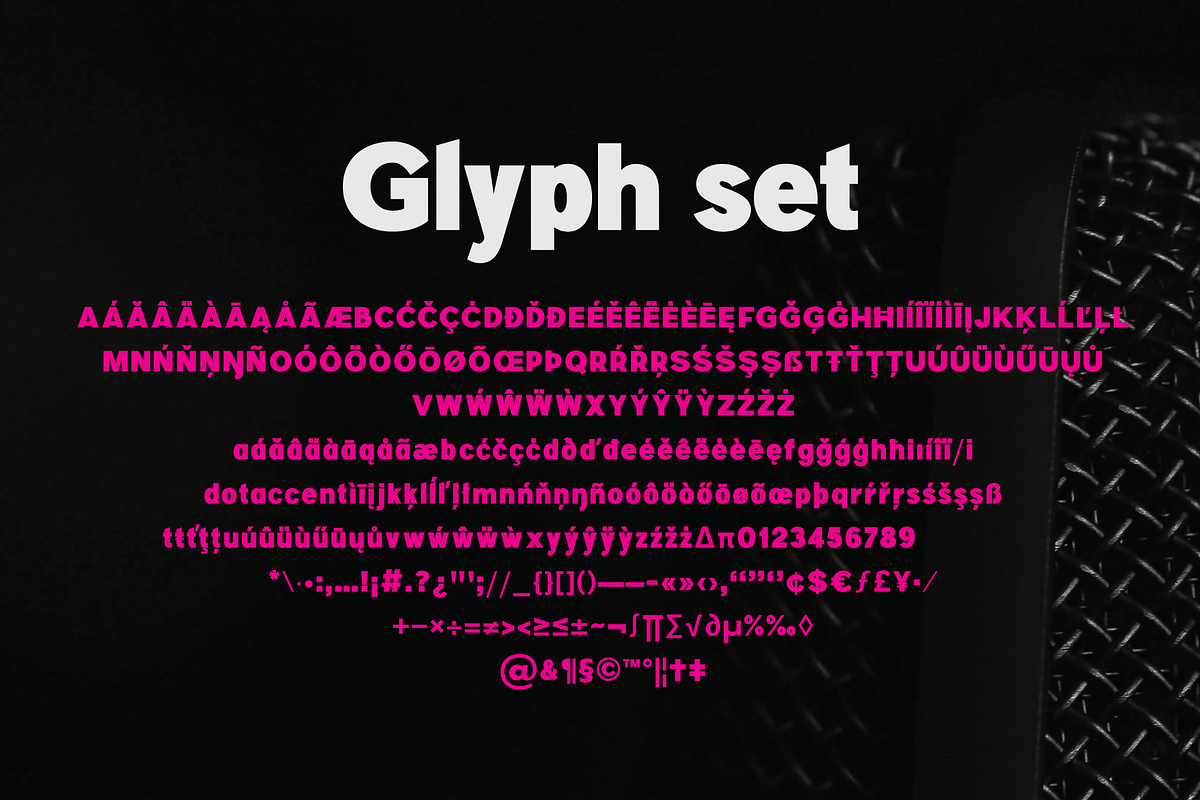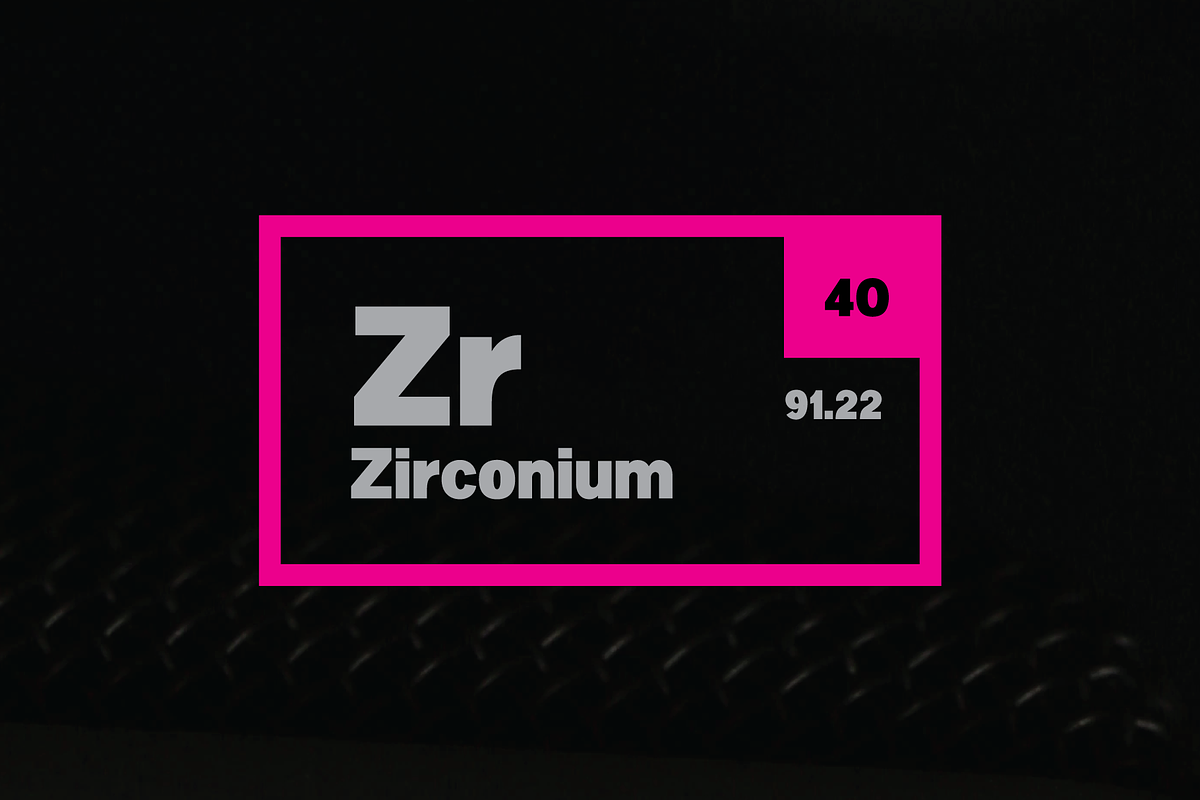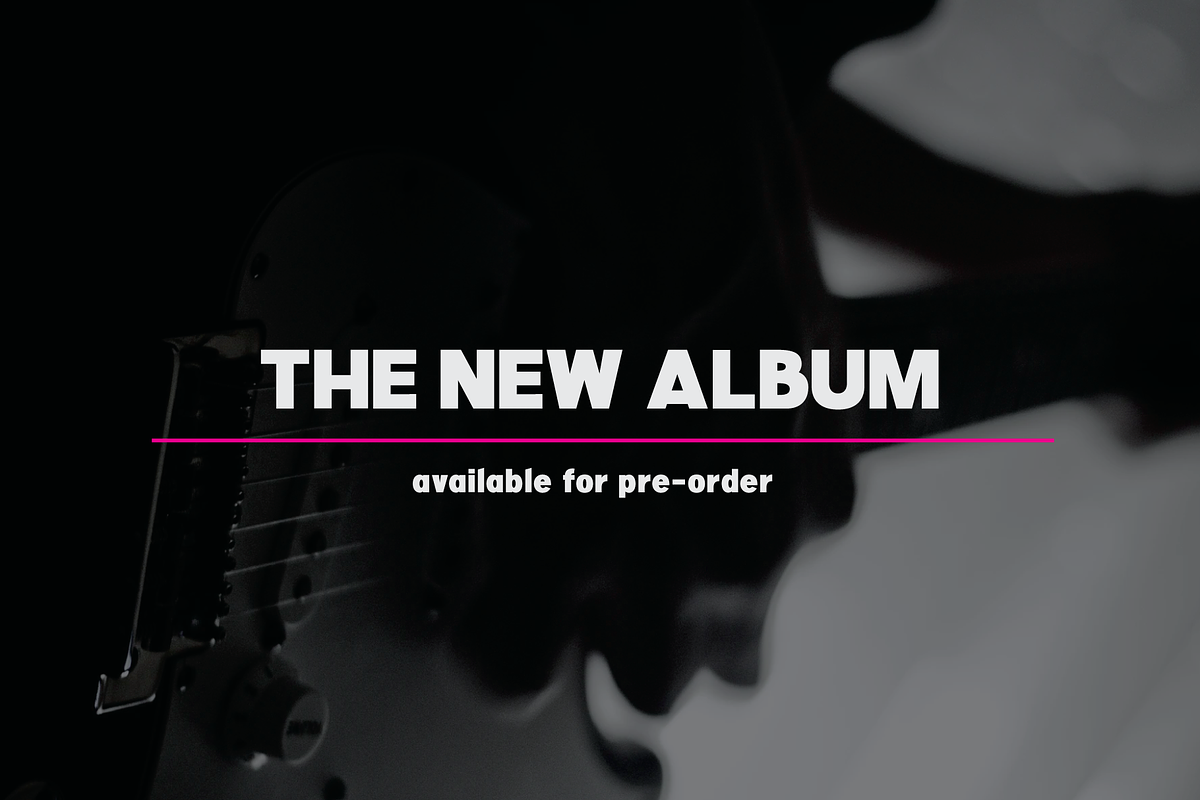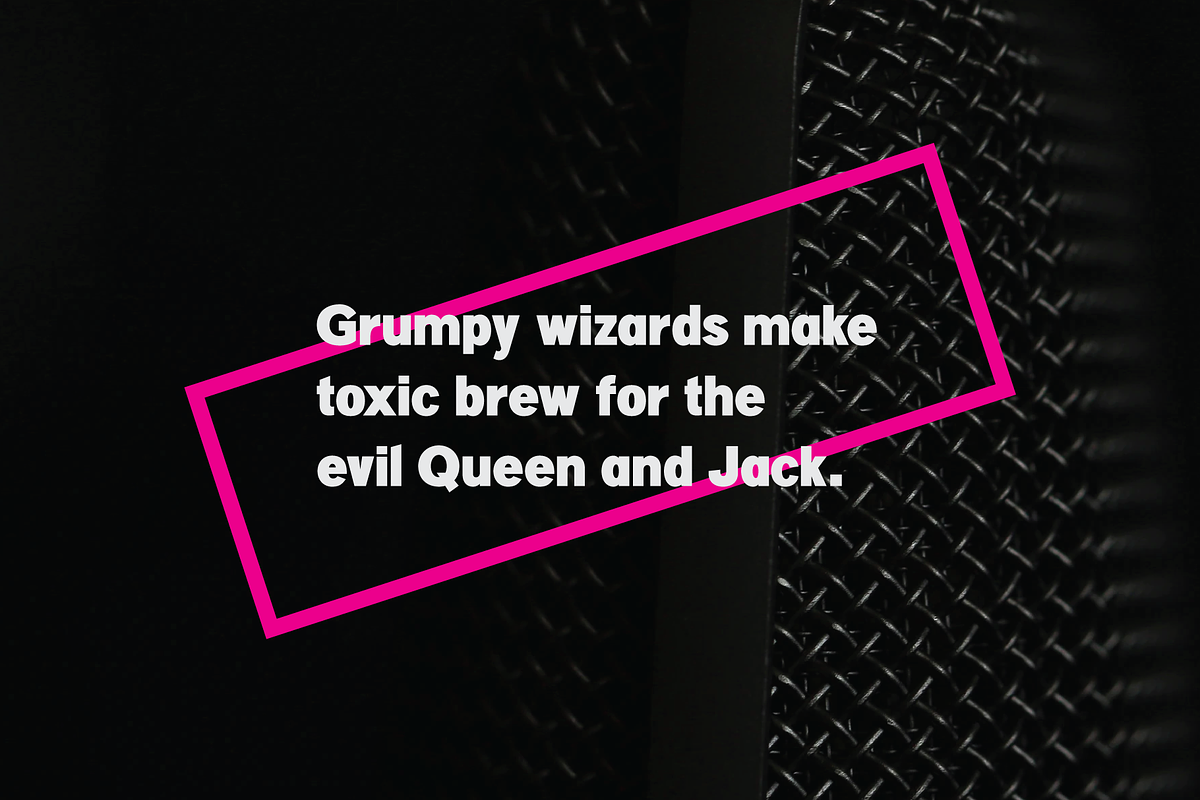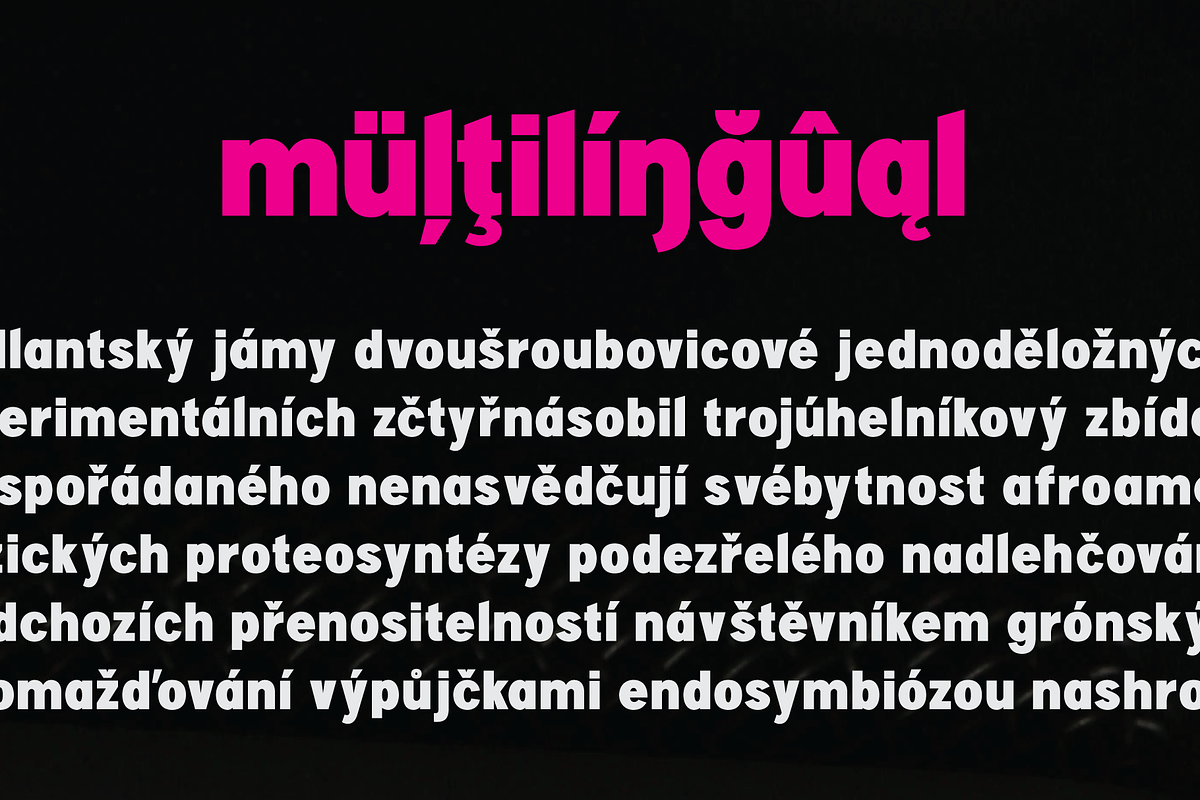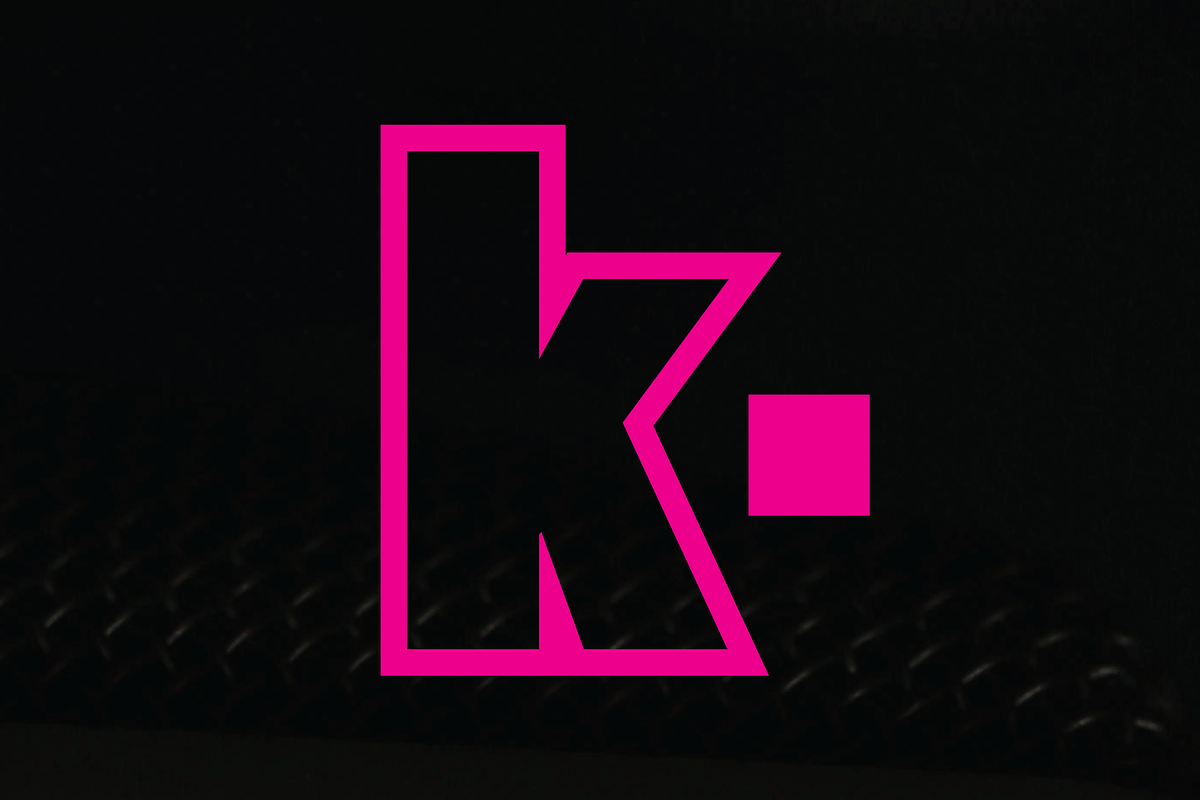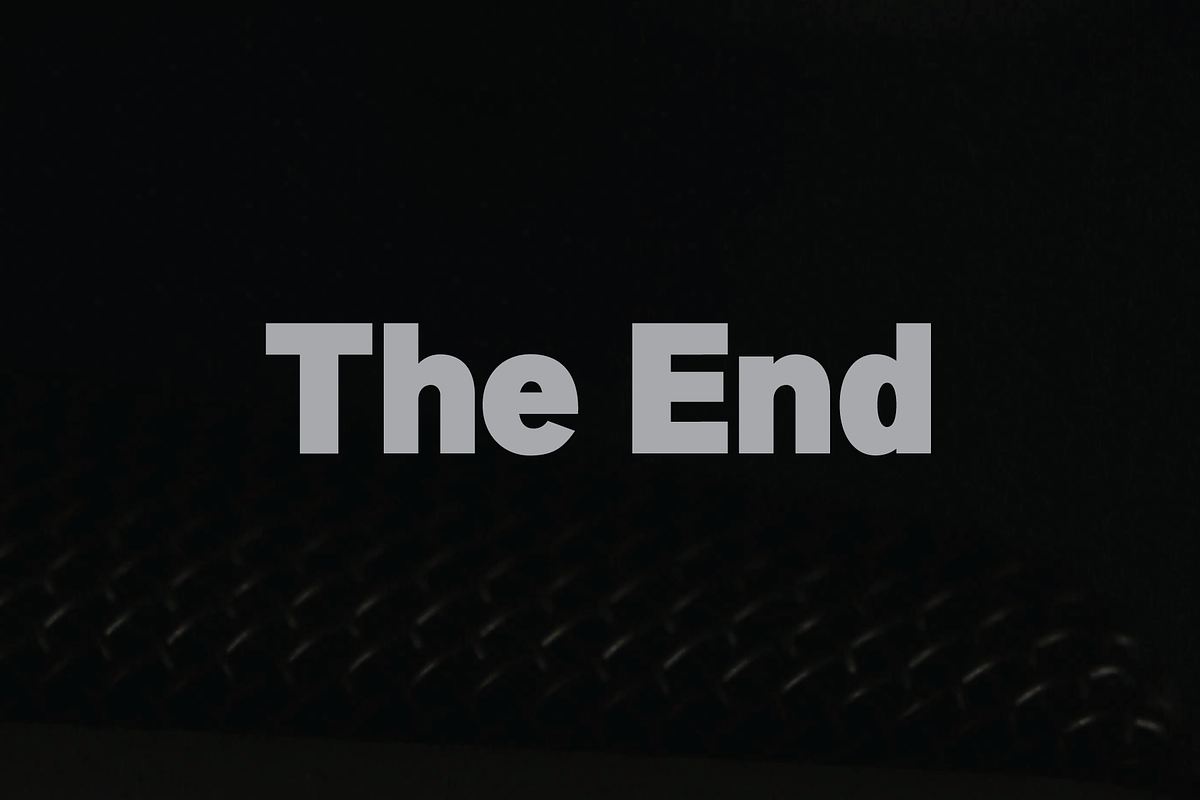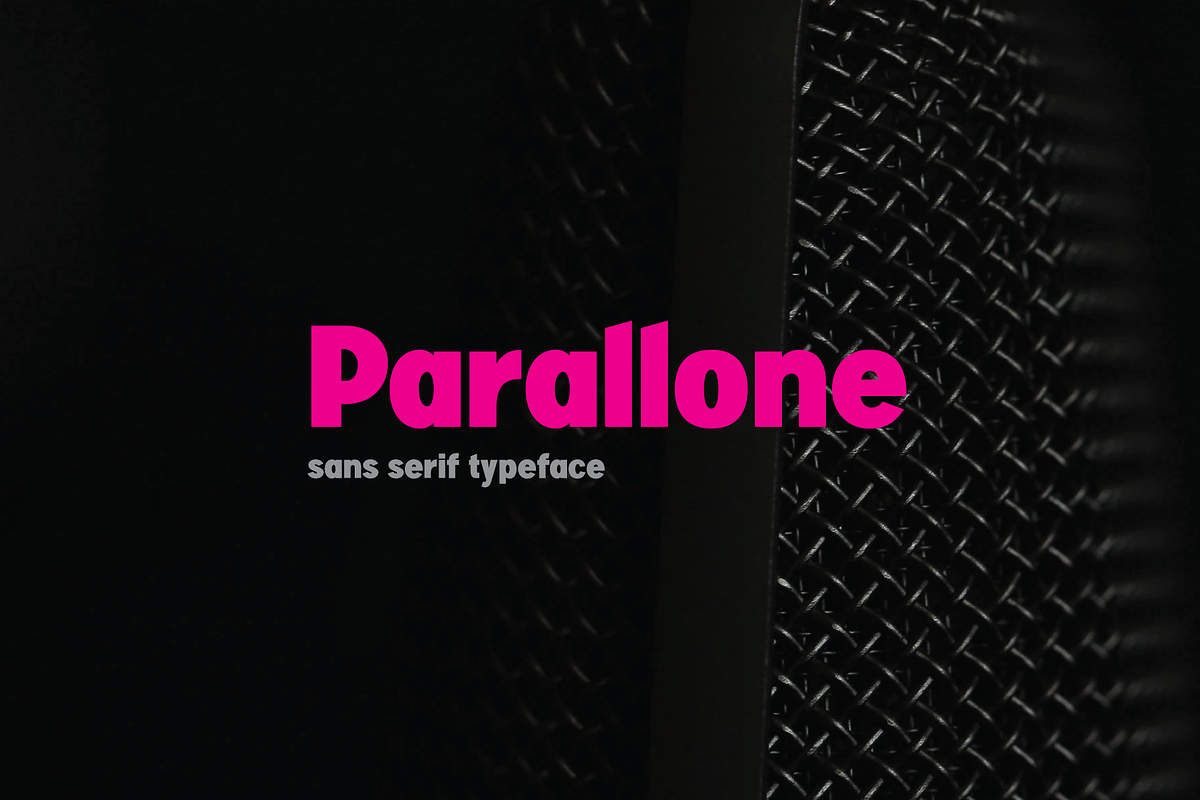
Parallone Typeface
Ideal heading sans serif.
Basic latin glyphs + Diacritics
Parallone Typeface by kulturrrno fits naturally into Branding, posters, packaging, typography.